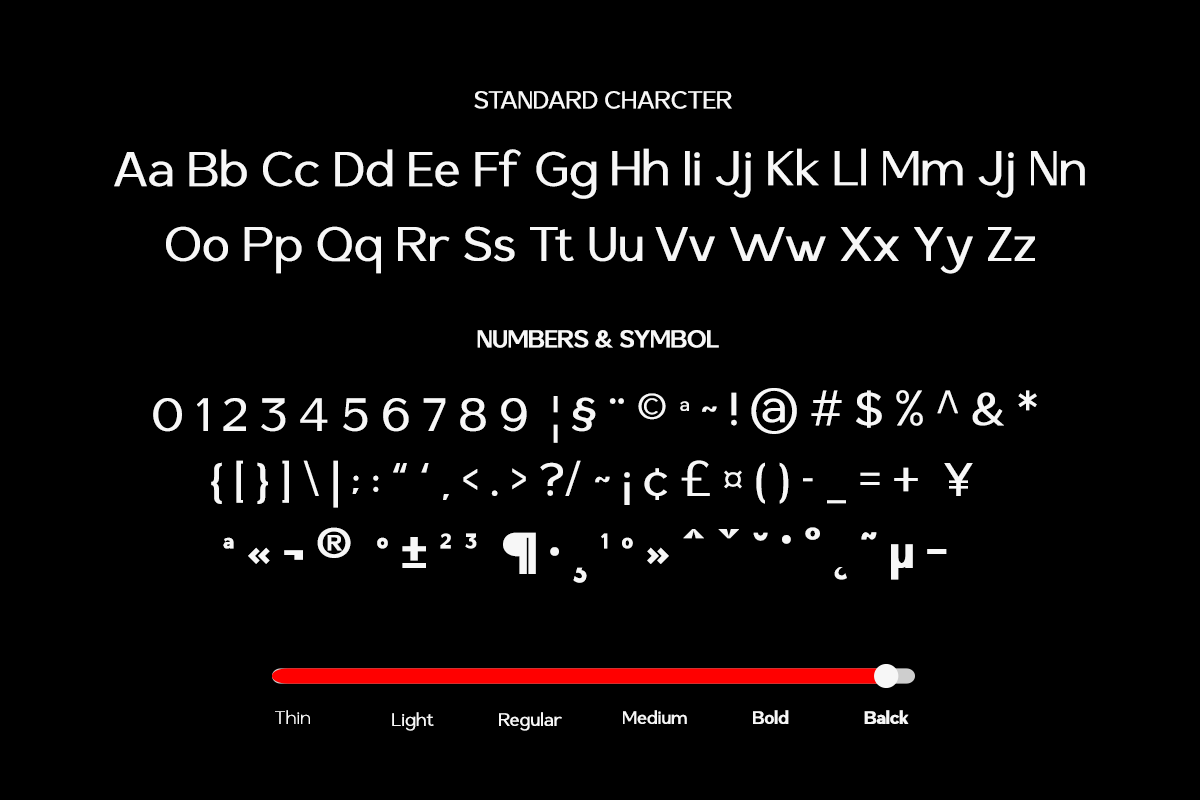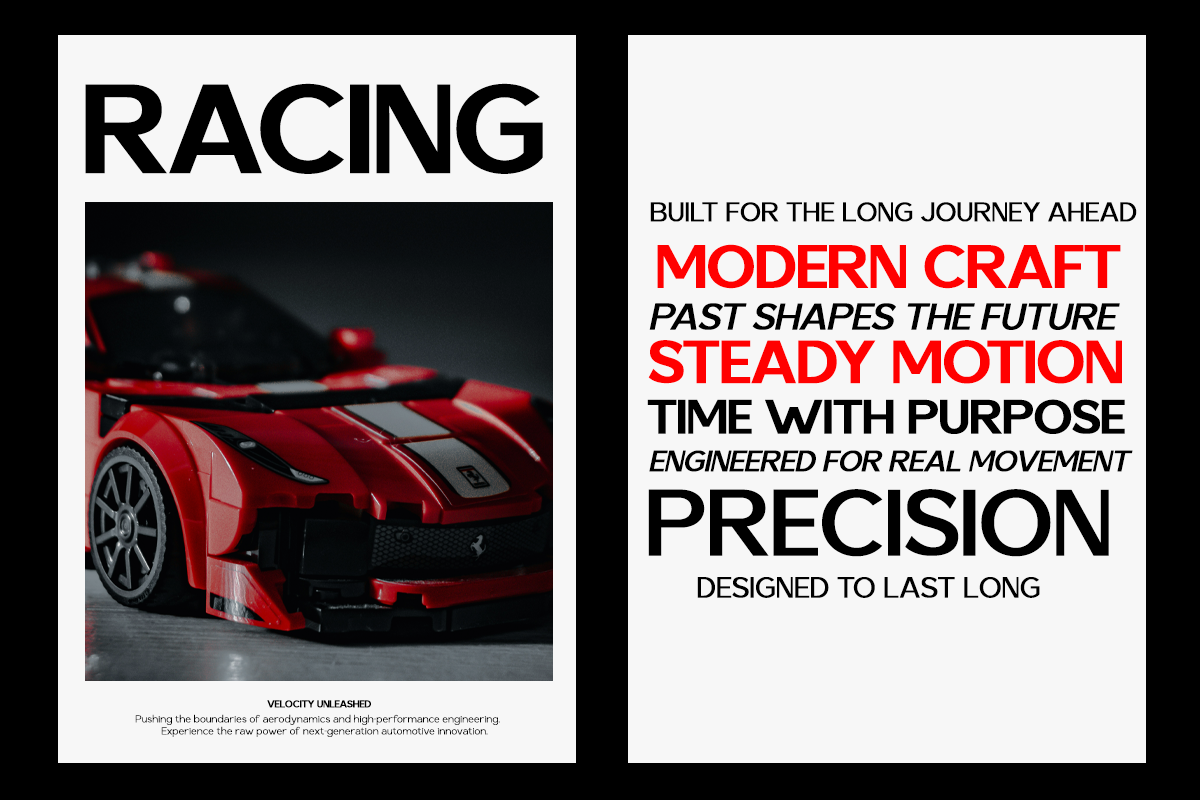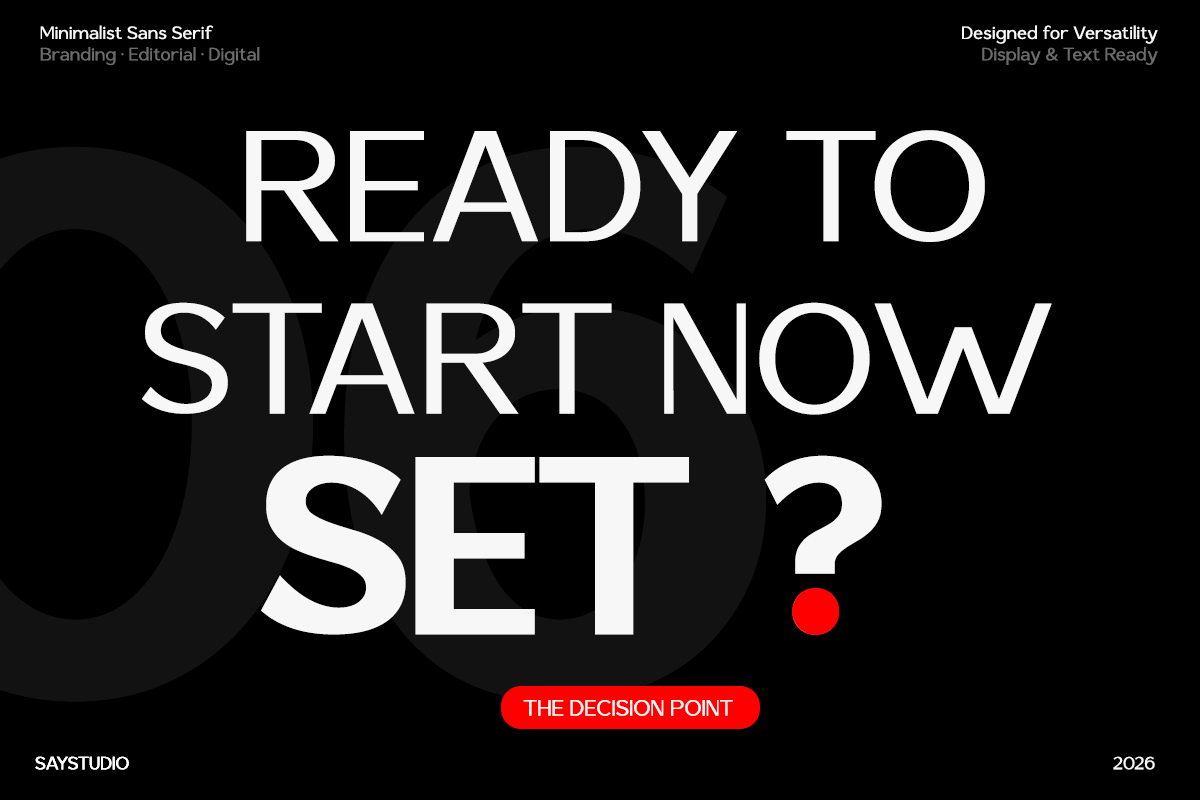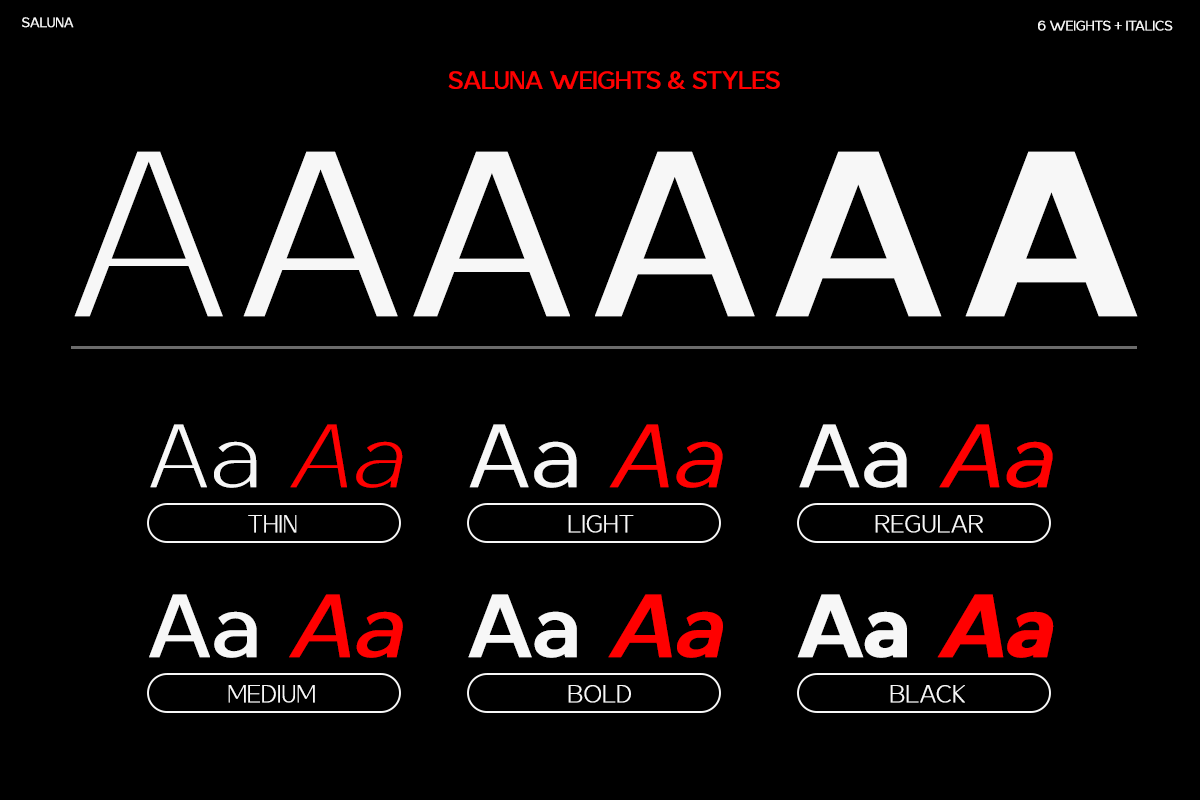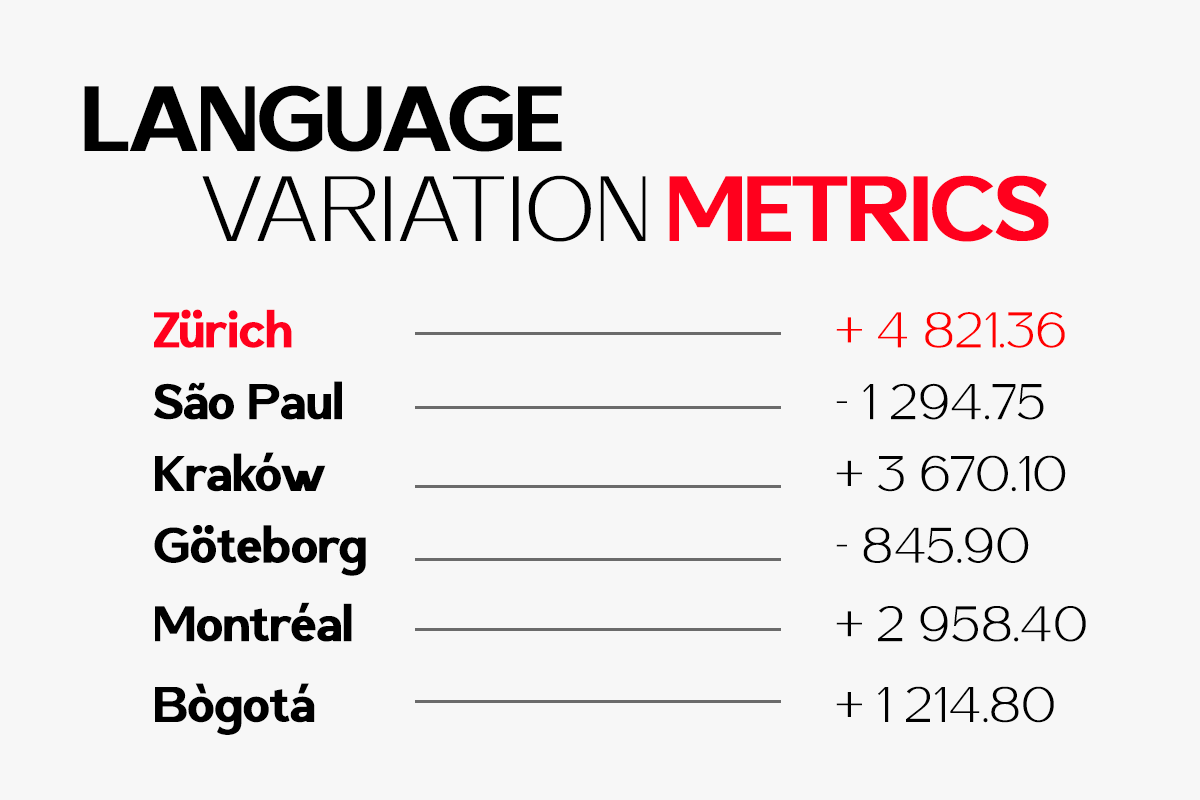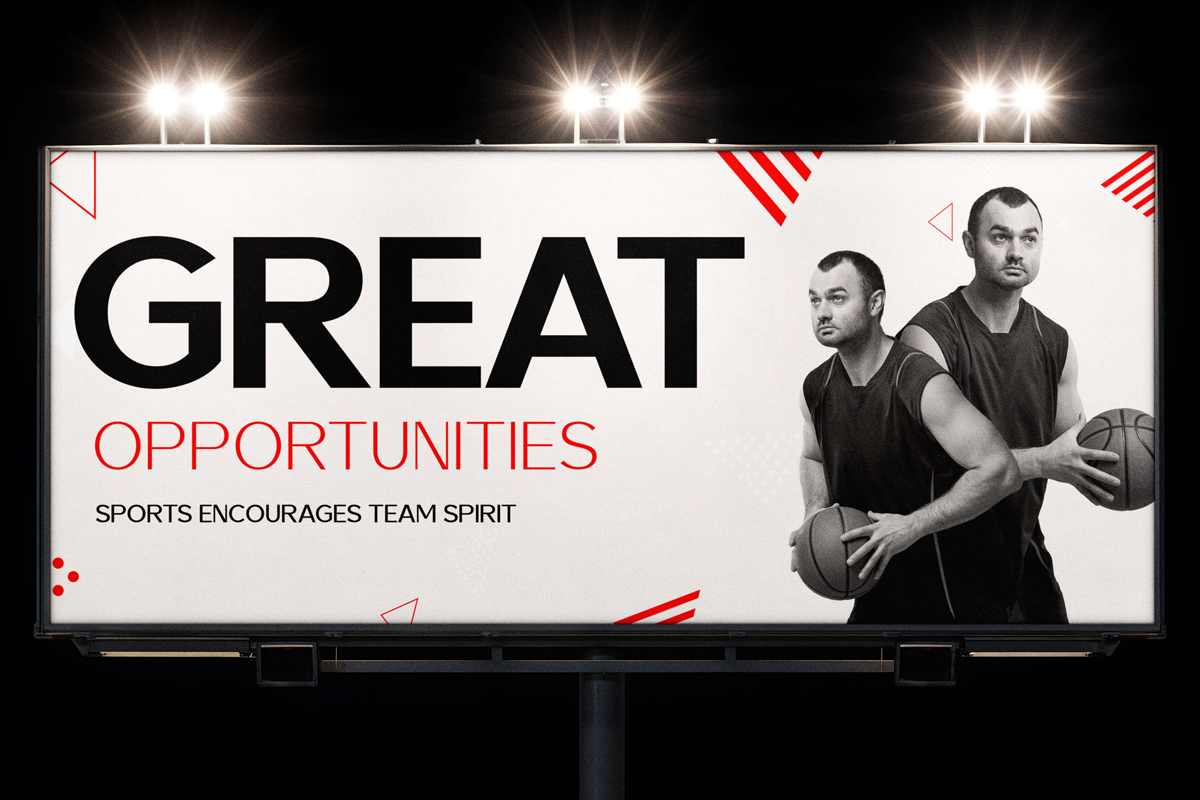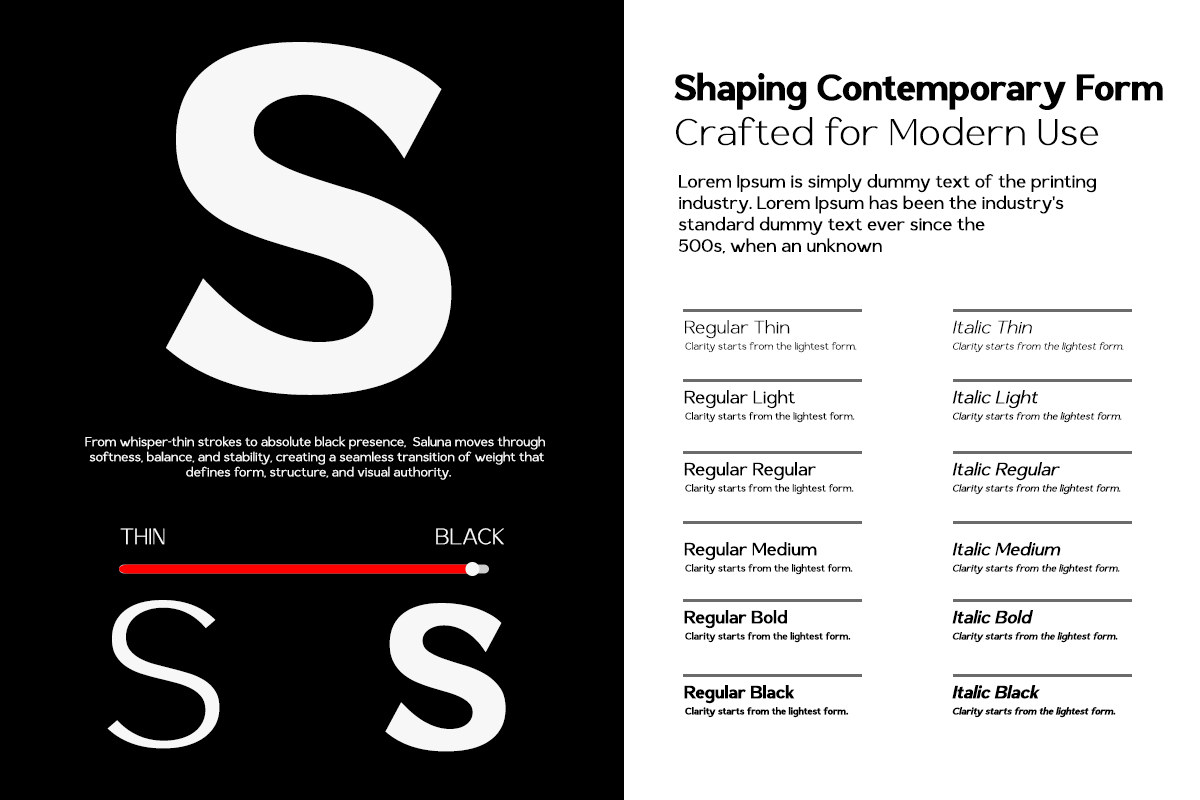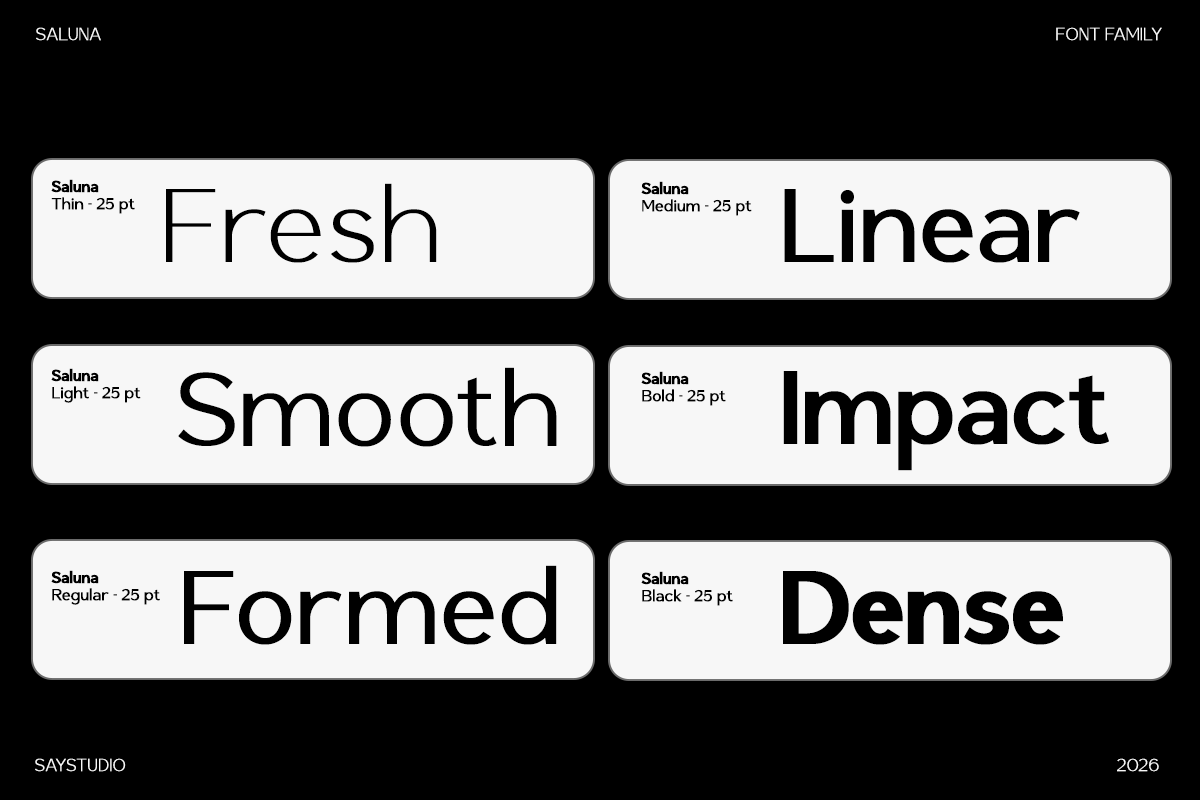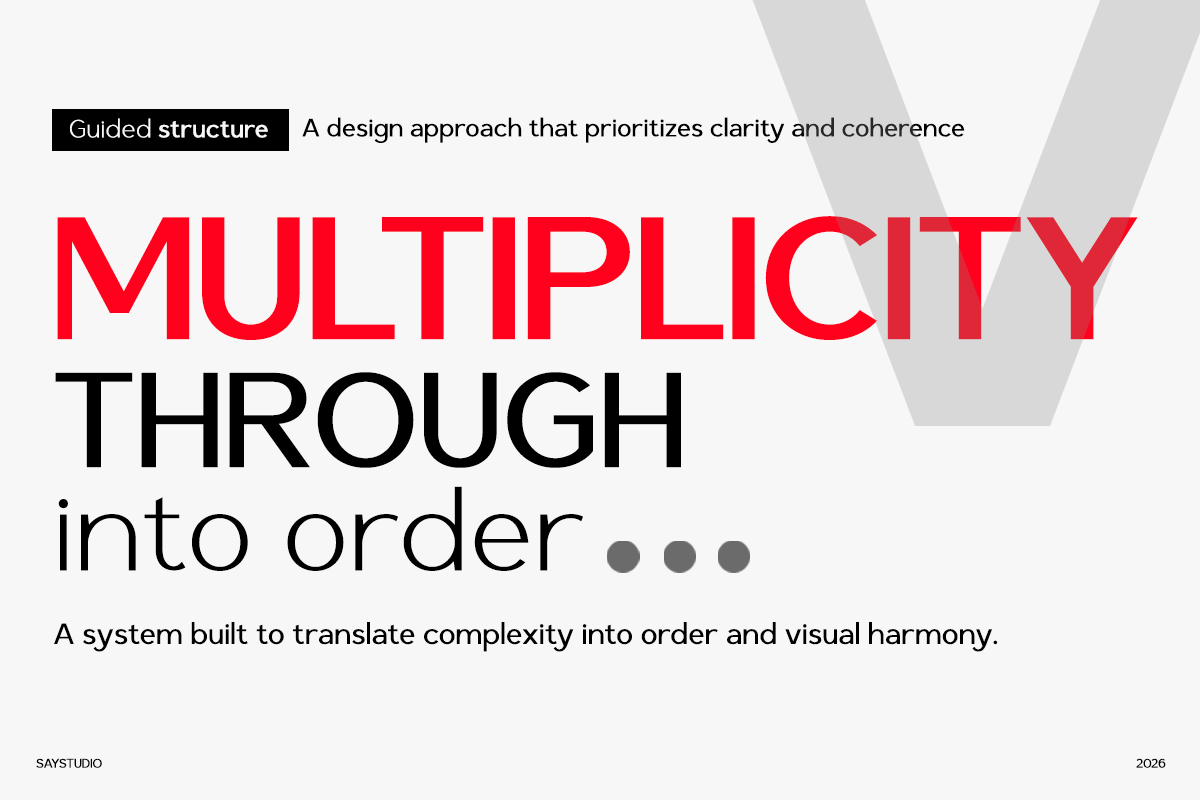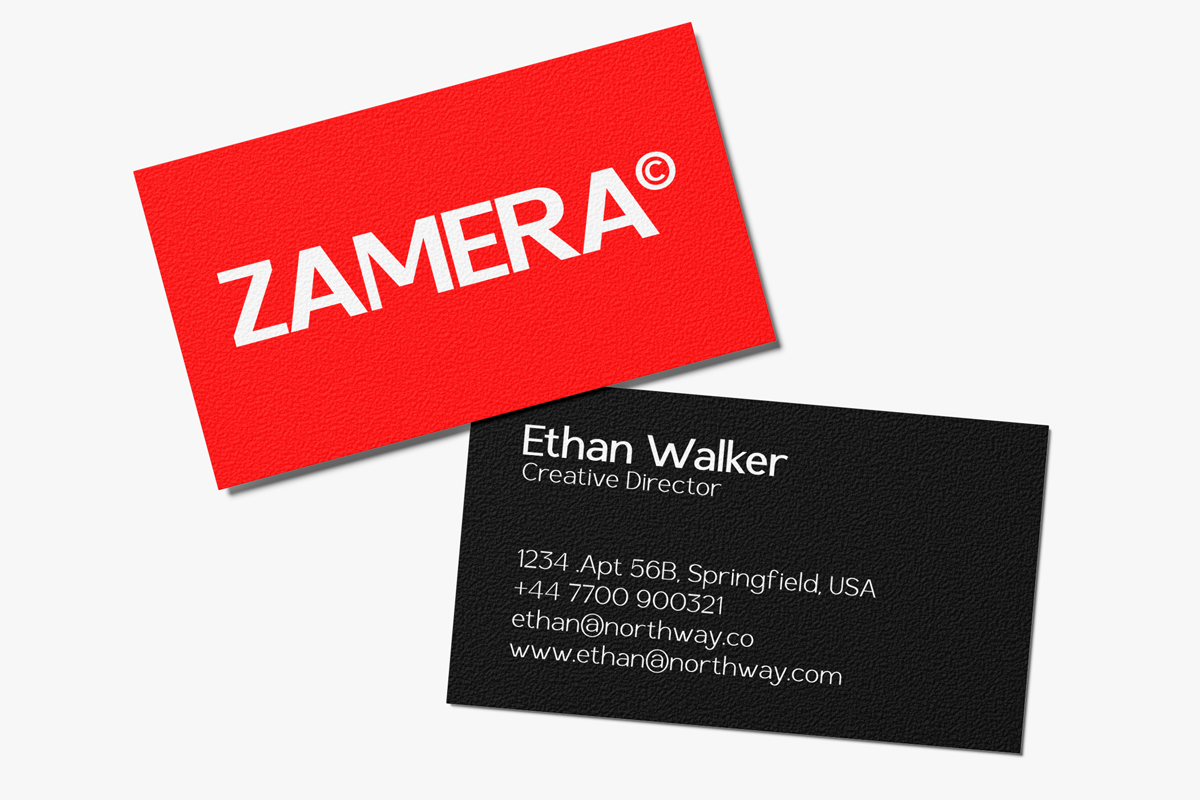
Saluna - Minimalist Sans Serif
Saluna is a clean and modern minimalist sans serif typeface designed for professional and commercial design needs. Built with precise geometry and balanced proportions, Saluna delivers excellent readability and a strong contemporary look that works perfectly for modern branding, editorial layouts, and digital design projects. Its neutral and versatile character makes it easy to pair with other typefaces while remaining visually confident on its own.
Designed to perform across multiple platforms, Saluna is highly suitable for logos, brand identities, corporate materials, websites, user interfaces, and marketing visuals. The consistent letterforms and clean spacing ensure reliable performance in both large display sizes and smaller text applications, making it a practical choice for designers working on diverse creative projects.
Whether you are building a startup brand, creating editorial content, or designing clean digital products, Saluna provides a modern sans serif solution that feels professional, adaptable, and future-ready. It is a dependable typeface crafted to support long-term visual identities and commercial design workflows.
- Uppercase, Lowercase
- Symbol, Number and Multilingual Support